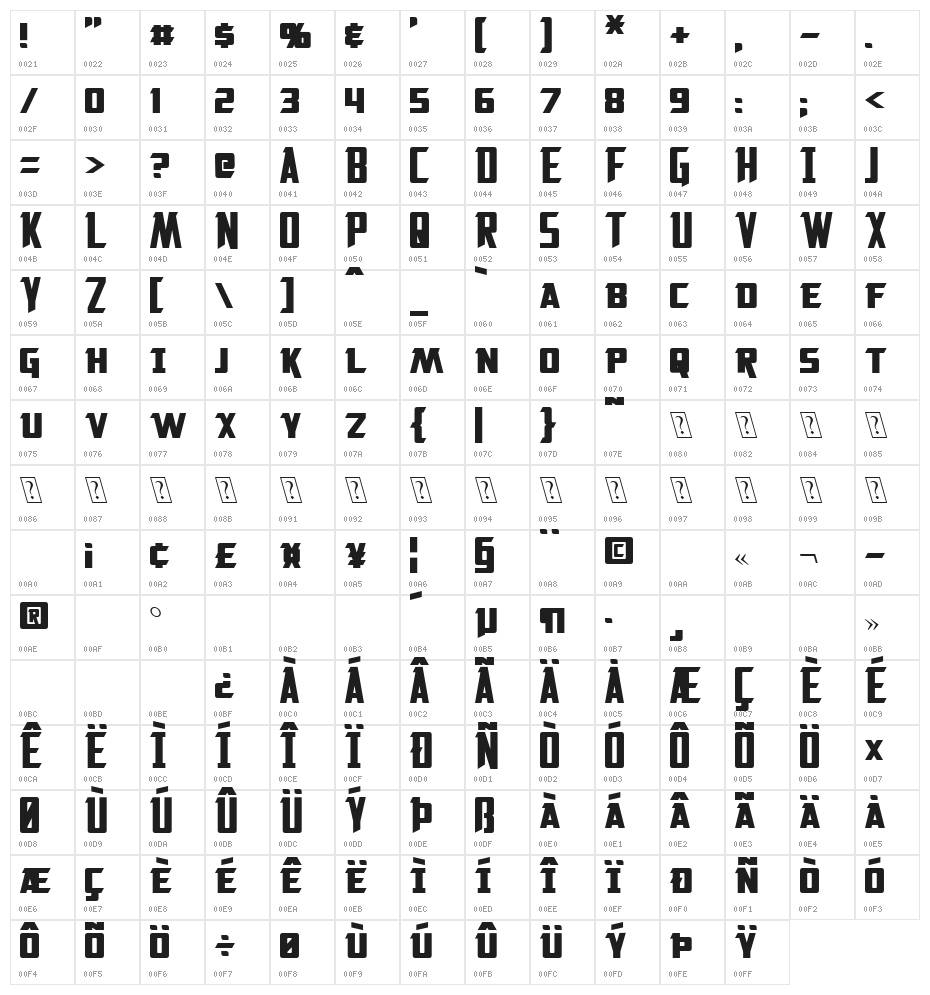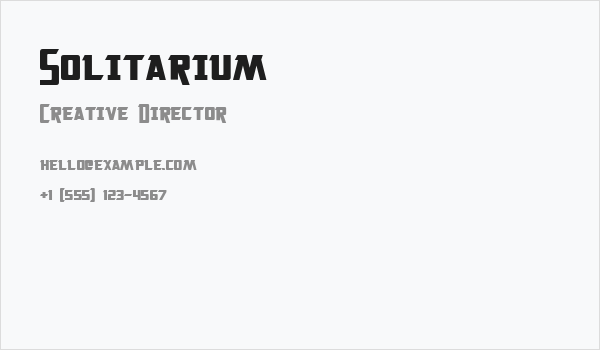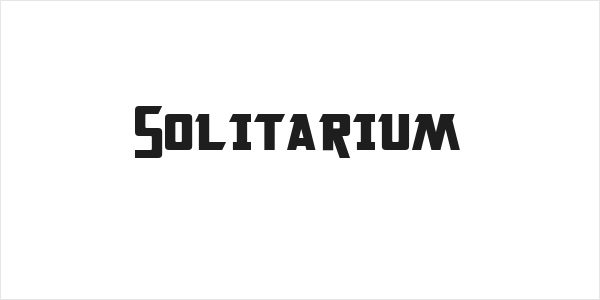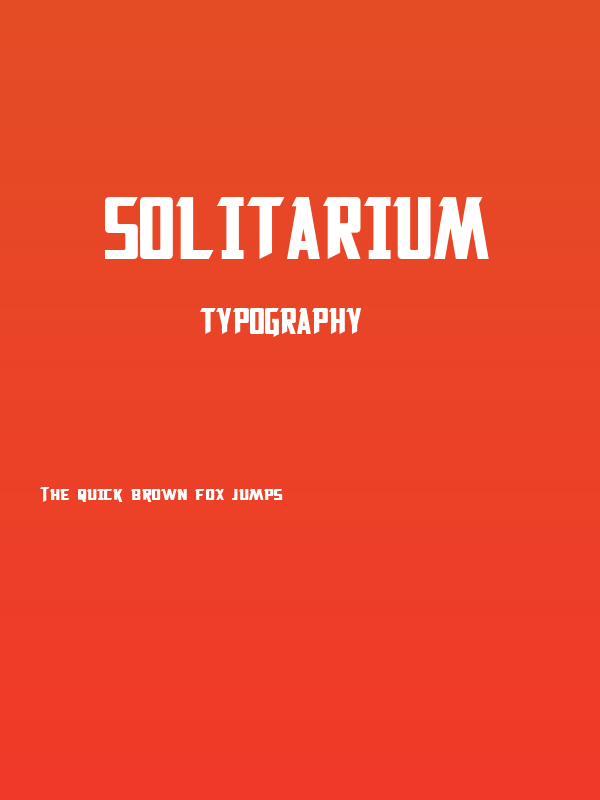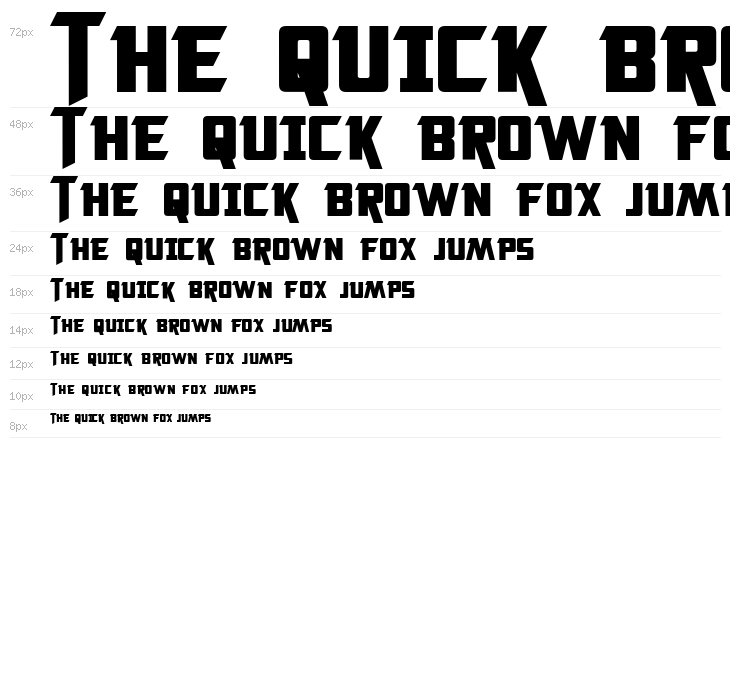
Solitarium Font
Solitarium Description
This font features a bold and geometric style with strong, angular lines and a futuristic appearance. The characters are designed with a blocky structure, giving them a robust and impactful look. The uppercase and lowercase letters maintain a consistent height, contributing to a uniform and cohesive aesthetic. The numbers and special characters follow the same design principles, ensuring a seamless integration across all elements. The font's distinct style makes it suitable for projects that require a modern and assertive visual identity.